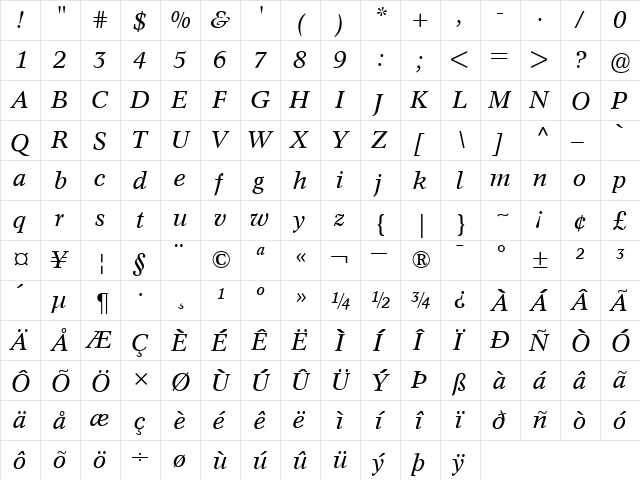
ConcordeBE RomanItalic
Design Context for ConcordeBE Typeface
ConcordeBE offers clean, dependable letterforms without strong stylistic allegiance, making it a practical choice for designers who need flexibility. Its italic angle brings a sense of urgency and motion to the letterforms.